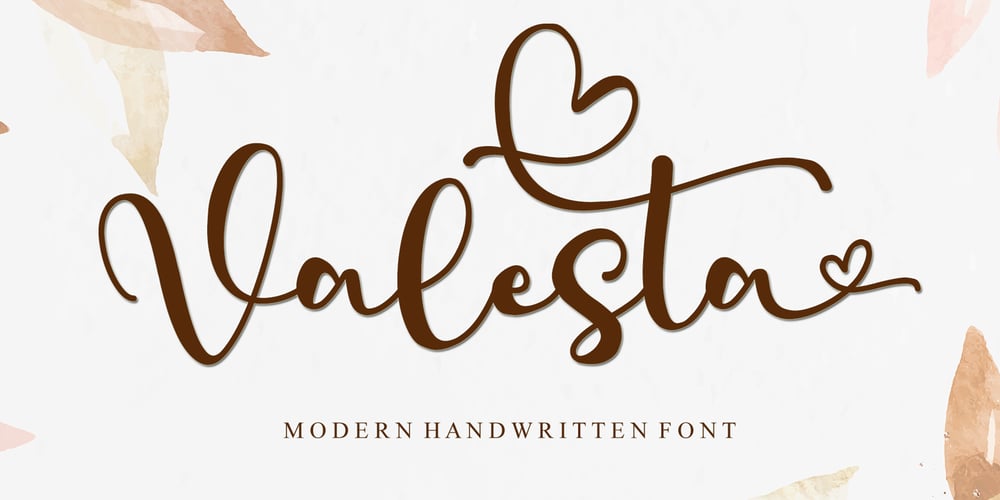
Valesta Font Family was designed by Ahmad Afandi and published by Letterafandi Studio. Valesta contains 2 styles and family package options. Valesta is a modern handwritten font. It looks stunning on wedding invitations, thank you cards, quotes, greeting cards, logos, business cards and every other design which needs a handwritten touch.This font is PUA encoded which means you can access all of the glyphs and swashes with ease!